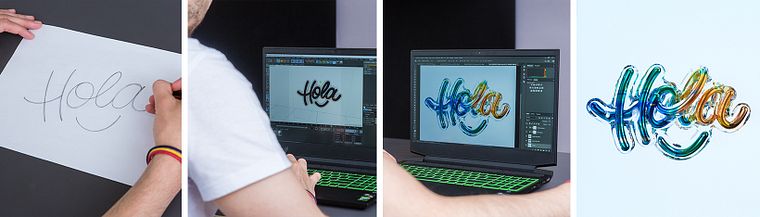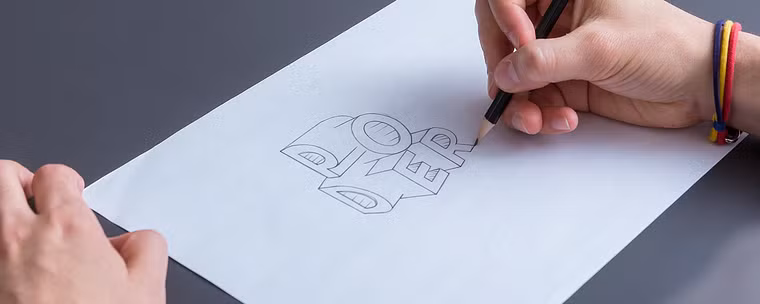
3D Font Design with a Metallic Finish
You’ll learn how to create three-dimensional type, starting from hand sketches and vectorizing in Illustrator, all the way through modeling, metallic texturing, and professional rendering in Cinema 4D.
The process includes hand sketching, digitizing and vectorizing in Illustrator, importing the file into Cinema 4D, modeling the letter, applying metallic textures, and finishing with professional rendering.
Yes, you’ll learn how to create and customize metallic finishes, apply textures like rusted metal, and simulate liquid and wavy effects on 3D typography.
It’s recommended for graphic designers, illustrators, and creatives looking to explore experimental typography and 3D modeling with realistic finishes.
You’ll develop skills in sketching, vectorizing, 3D modeling, texturing, digital lighting, and rendering typography with professional-quality finishes.